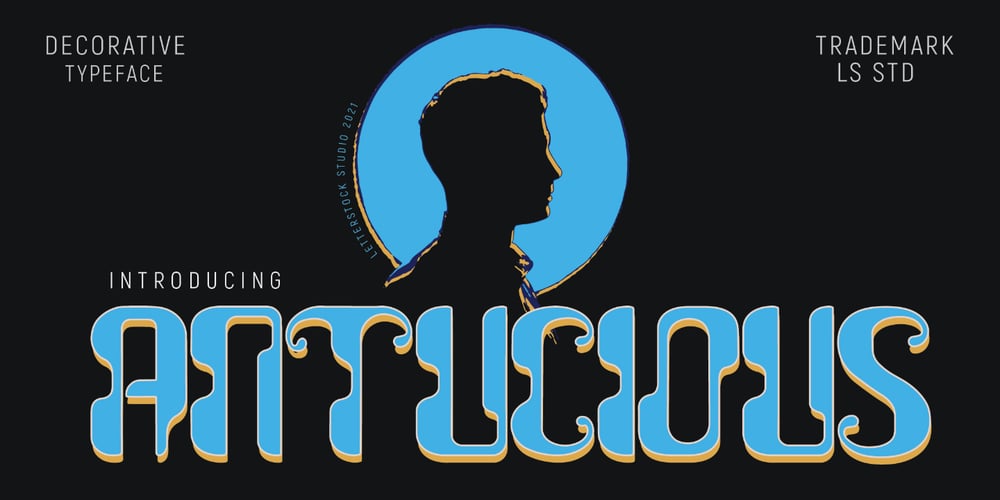
Antucious Font Family was designed by Studio LetterStock and published by LetterStock. Antucious contains 1 styles and family package options. **Antucious Font** This pair was inspired by the retro movie poster design that i saw on some coffee shop, It was crafted by hand specially to add natural handmade feeling in its brand identity than i make it clean with pentool. **Opentype features**Antucious font has 170 character set included Antucious Font is very good looking in logo,movie poster design, youtube tumbnail, labels, product packaging, invitations, advertising and others. This fonts works with folowing languages: Afrikaans, Albanian, Asu, Basque, Bemba, Bena, Chiga, Cornish, Danish, English, Estonian, Filipino, Finnish, French, Friulian, Galician, German, Gusii, Indonesian, Irish, Italian, Kabuverdianu, Kalenjin, Kinyarwanda, Low German, Luo, Luxembourgish, Luyia, Machame, Makhuwa-Meetto, Makonde, Malagasy, Malay, Manx, Morisyen, North Ndebele, Norwegian Bokmål, Norwegian Nynorsk, Nyankole, Oromo, Portuguese, Romansh, Rombo, Rundi, Rwa, Samburu, Sango, Sangu, Scottish Gaelic, Sena, Shambala, Shona, Soga, Somali, Spanish, Swahili, Swedish, Swiss German, Taita, Teso, Vunjo, Zulu Thank you for using this font.LS